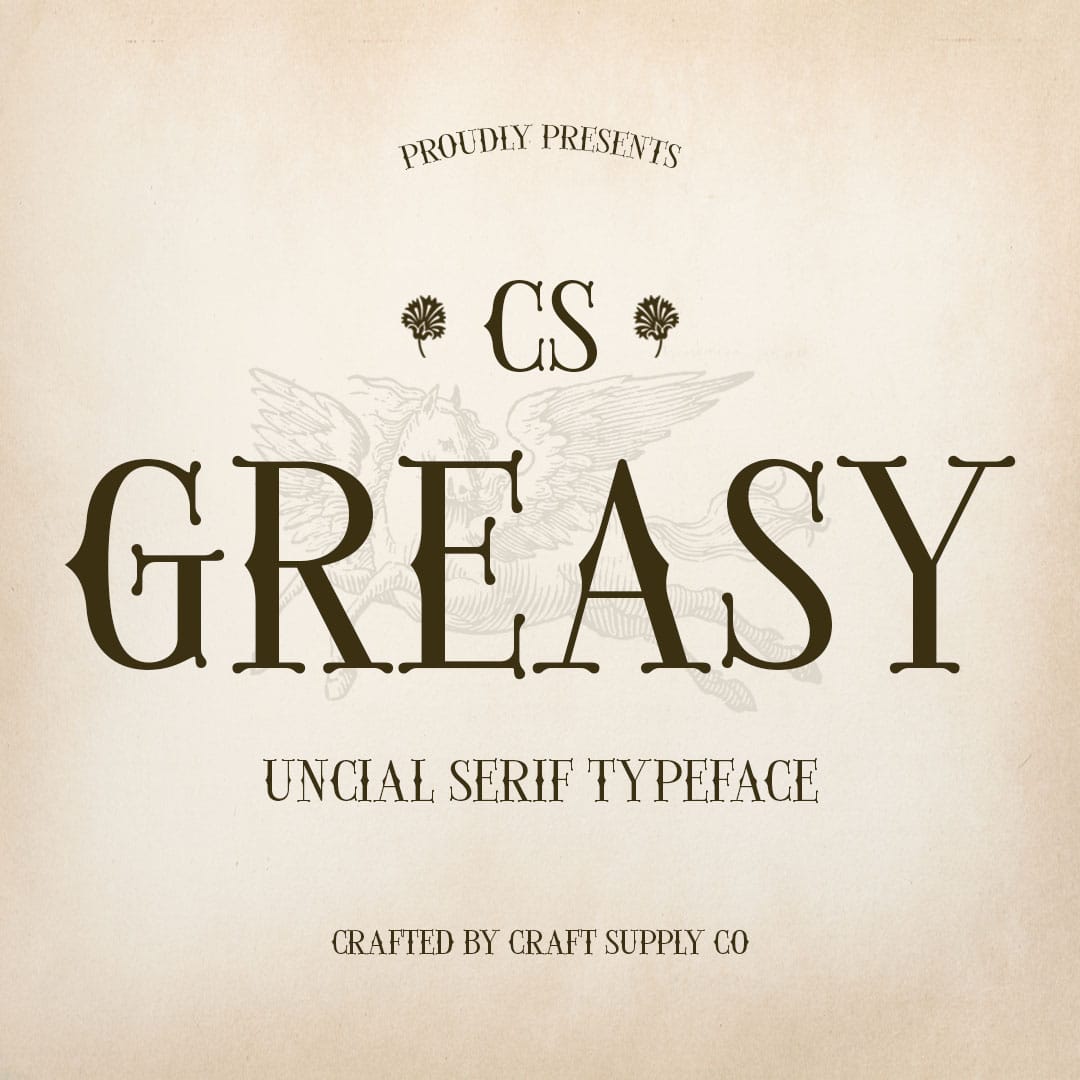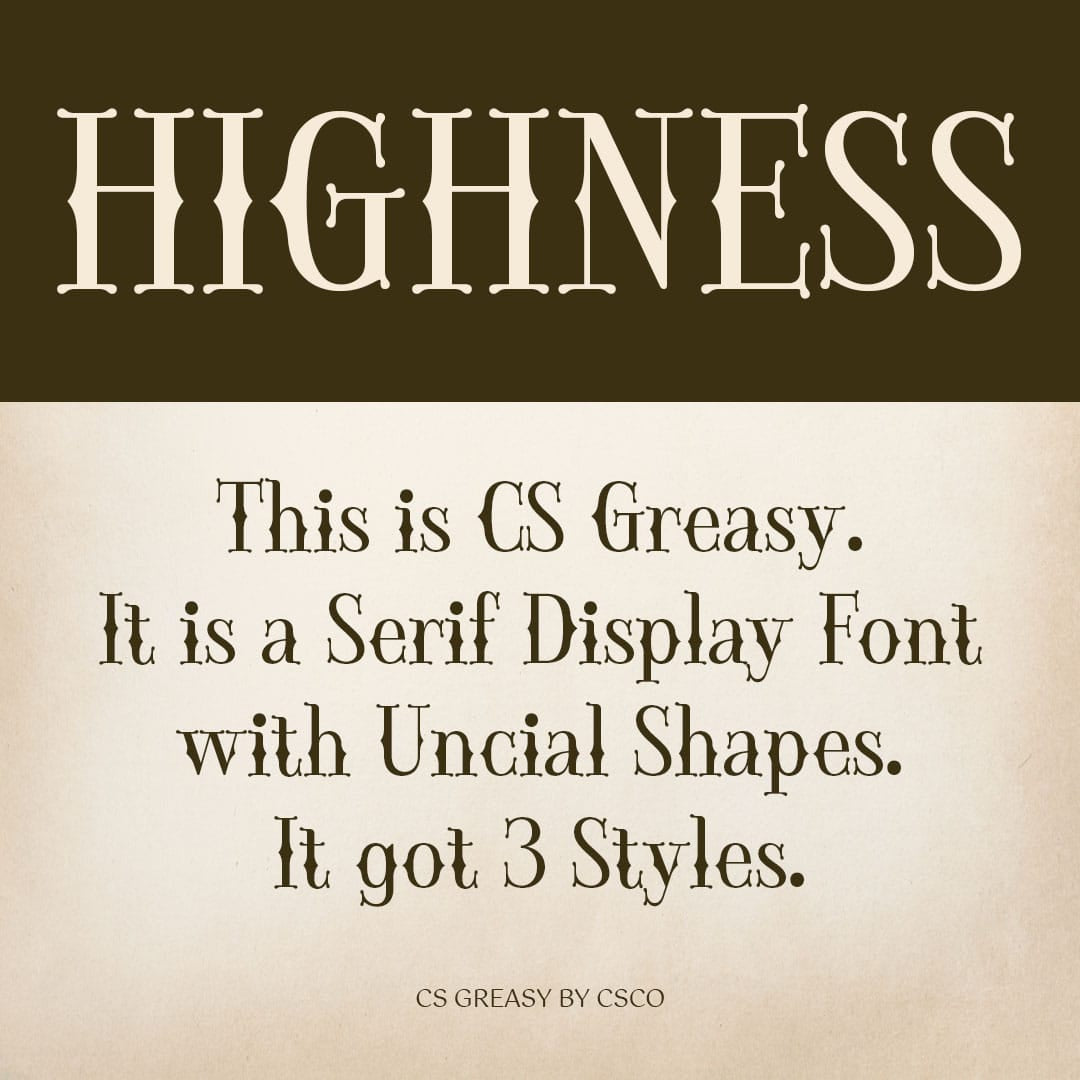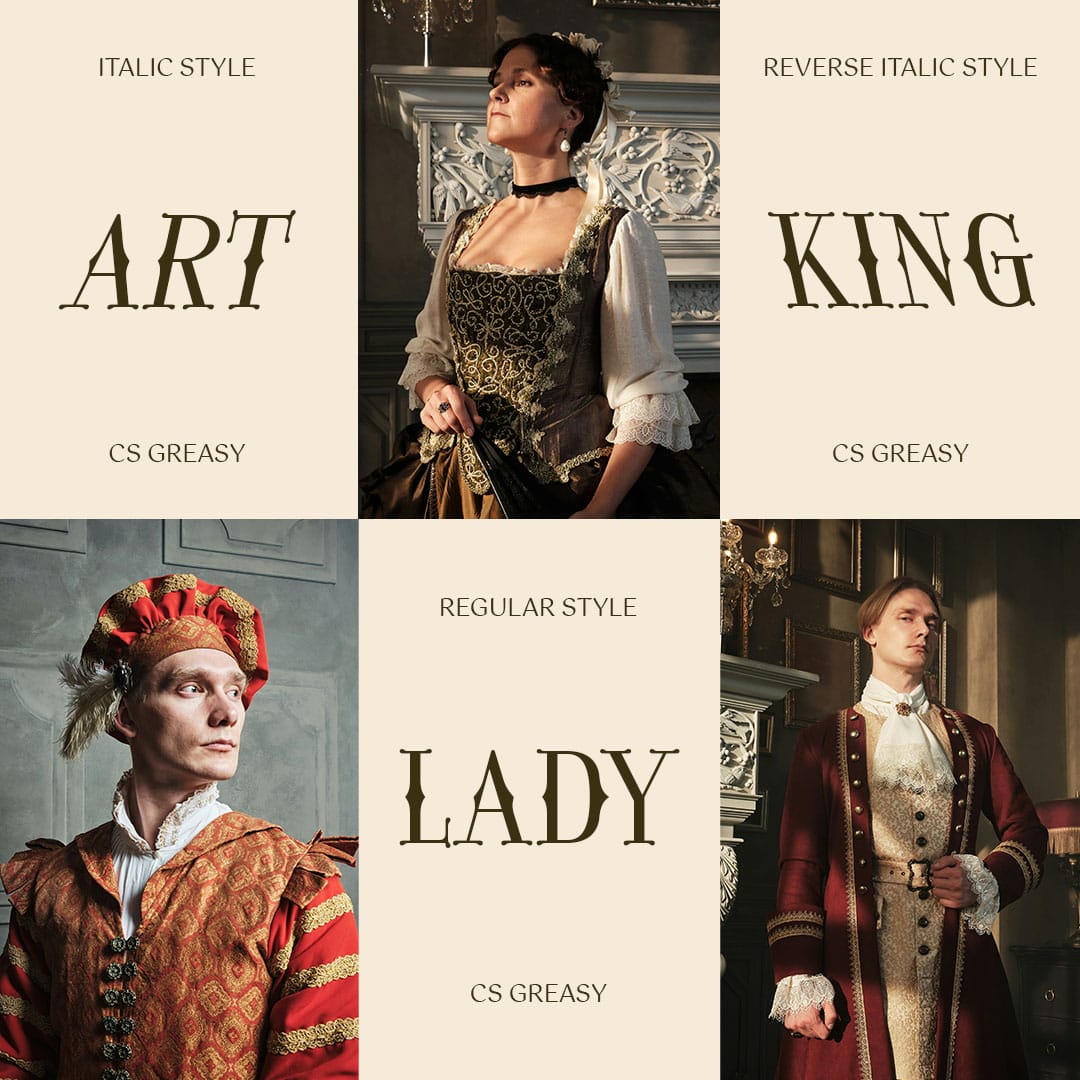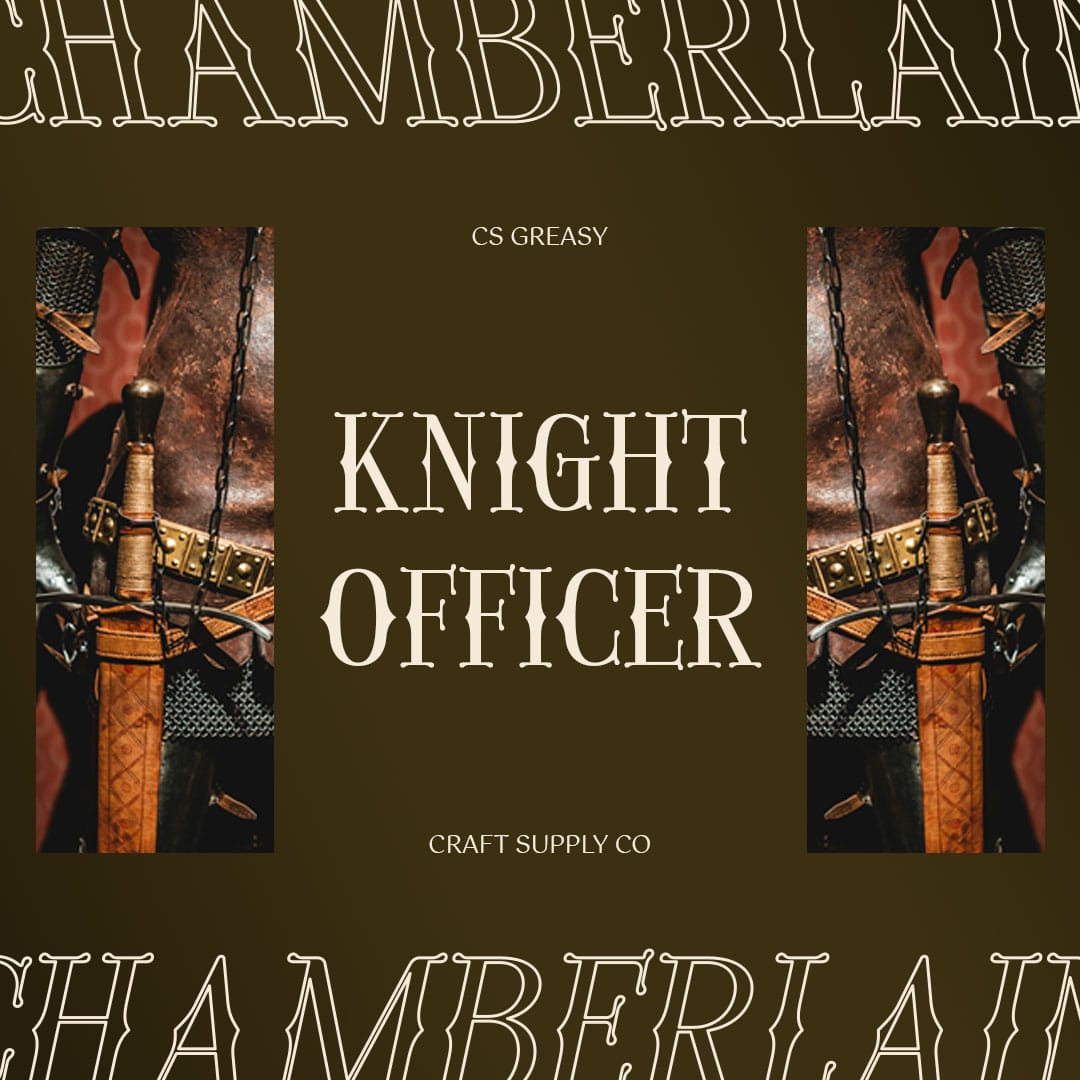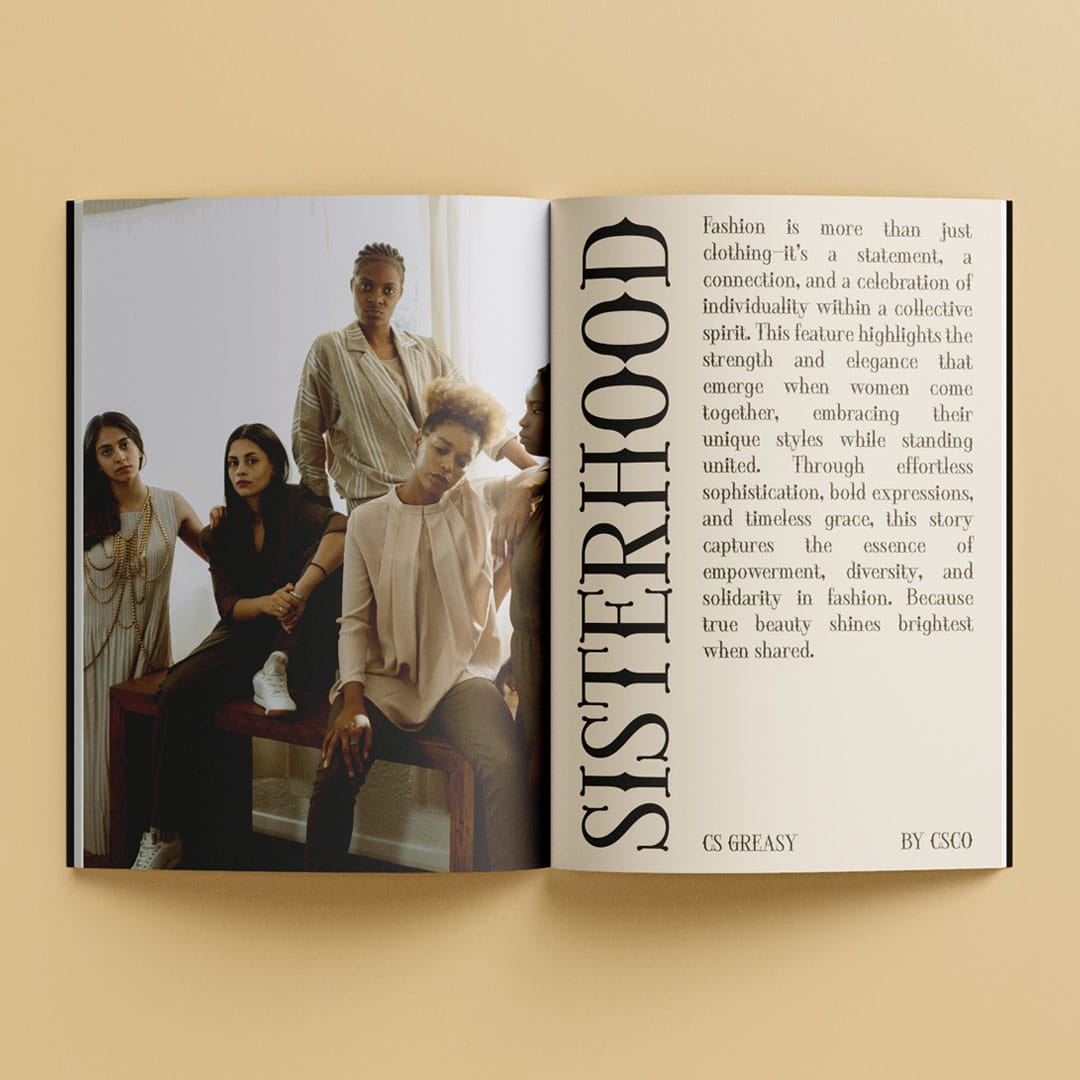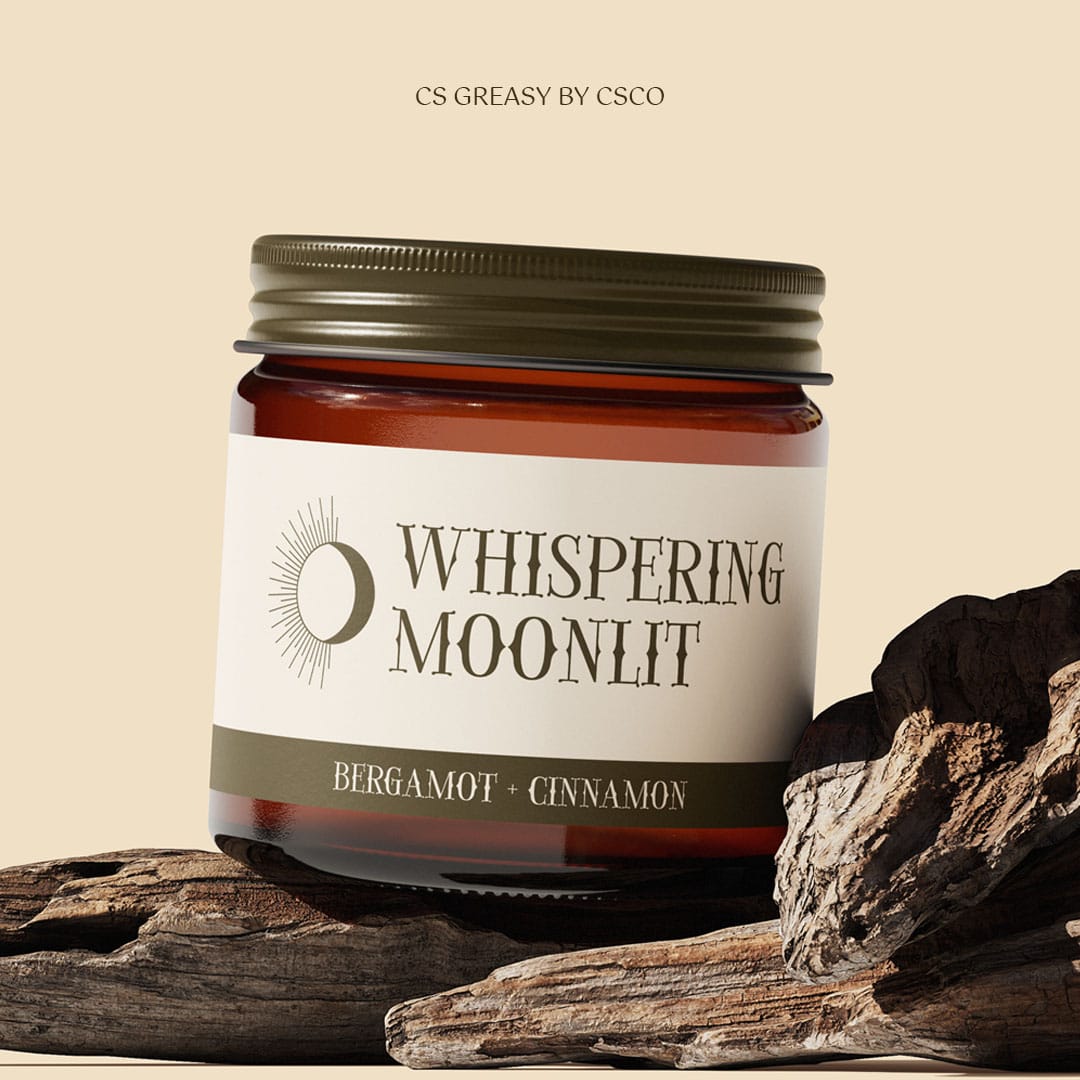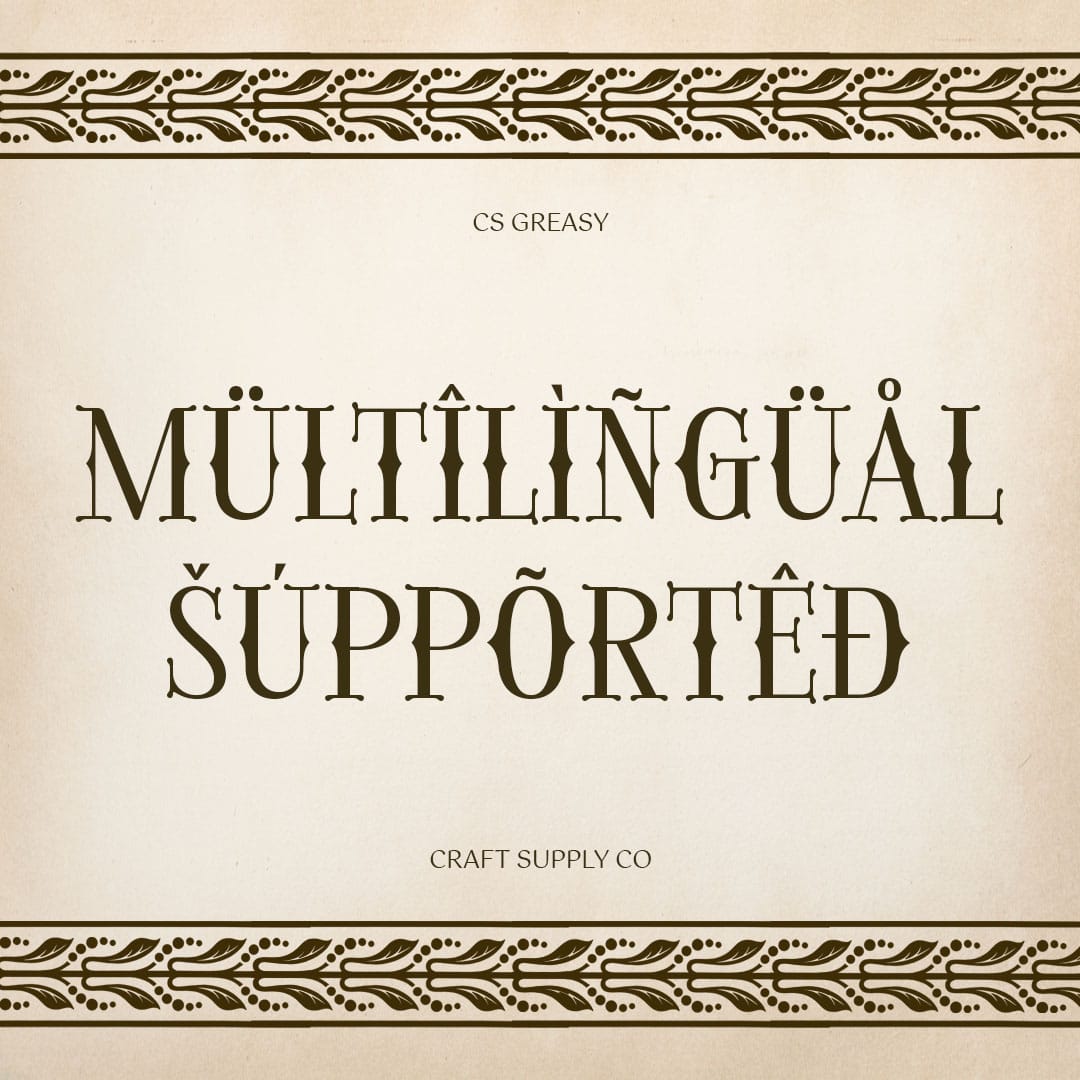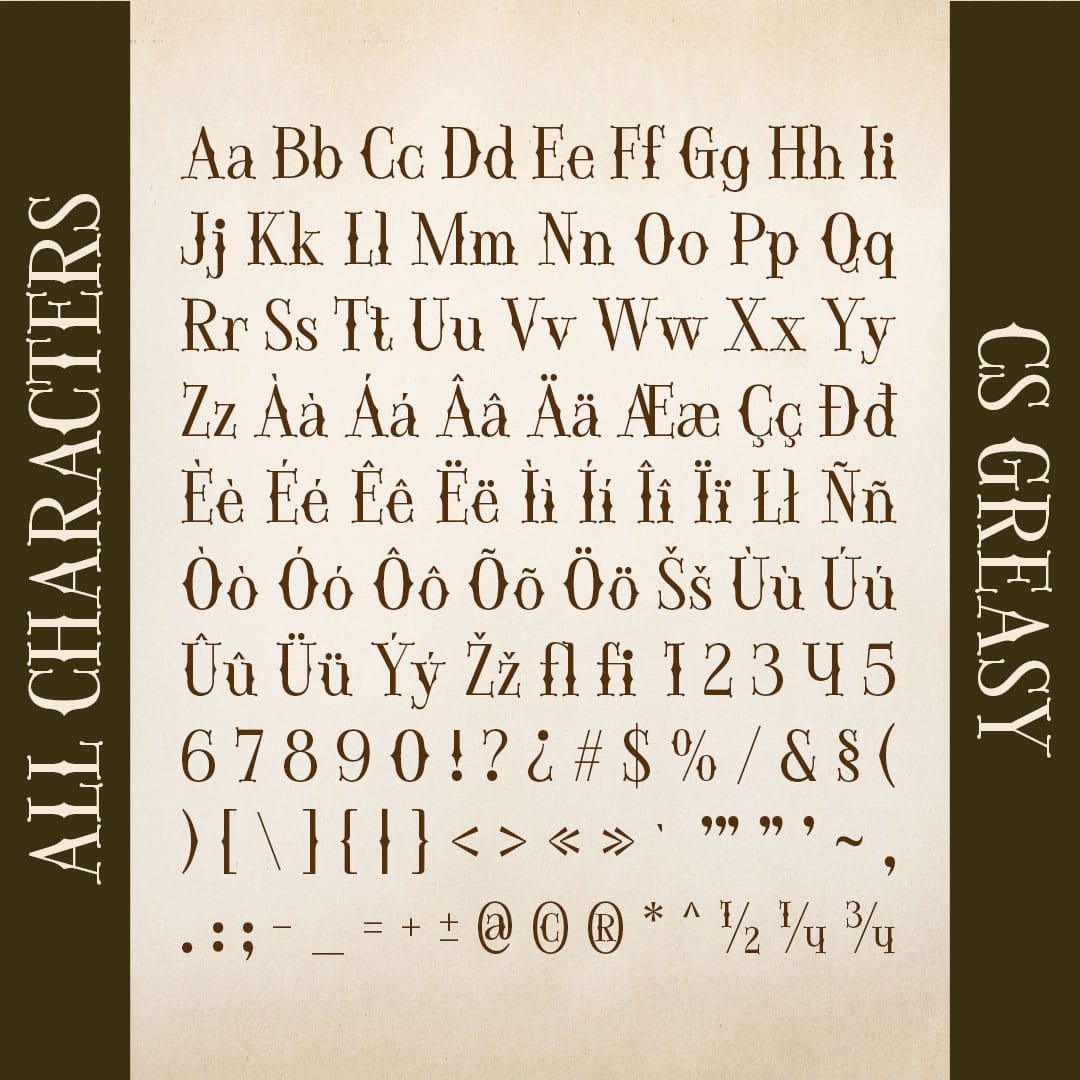
CS Greasy – Uncial Font
CS Greasy – A Bold and Timeless Uncial Font
Rounded Letterforms with a Historic Charm
CS Greasy is a classic display serif font inspired by the uncial script tradition, known for its smooth, rounded letterforms and flowing elegance. With a design that blends historical authenticity with a vintage appeal, this font evokes the mystical and artistic character of ancient manuscripts and medieval calligraphy.
A Fusion of Retro and Medieval Aesthetics
The distinctive curves and balanced strokes of CS Greasy create a font that is both expressive and readable, making it perfect for projects that require a rich historical atmosphere. It seamlessly bridges the gap between antique script traditions and modern design, delivering a look that feels timeless yet refreshingly unique.
Ideal for Fantasy and Classic Typography
CS Greasy shines in fantasy-themed designs, book covers, branding for historical or medieval concepts, and artistic typography projects. Whether used for storytelling, folklore-inspired visuals, or classical typography, this font brings a unique, nostalgic, and elegant touch to any design.
CS Greasy Regular
CS Greasy Italic
CS Greasy Reverse Italic
CS Greasy is a bold uncial font featuring smooth, rounded letterforms inspired by historical script traditions. It includes three styles: Regular, Italic, and Reverse Italic, making it suitable for a variety of design projects that require a vintage and elegant aesthetic.